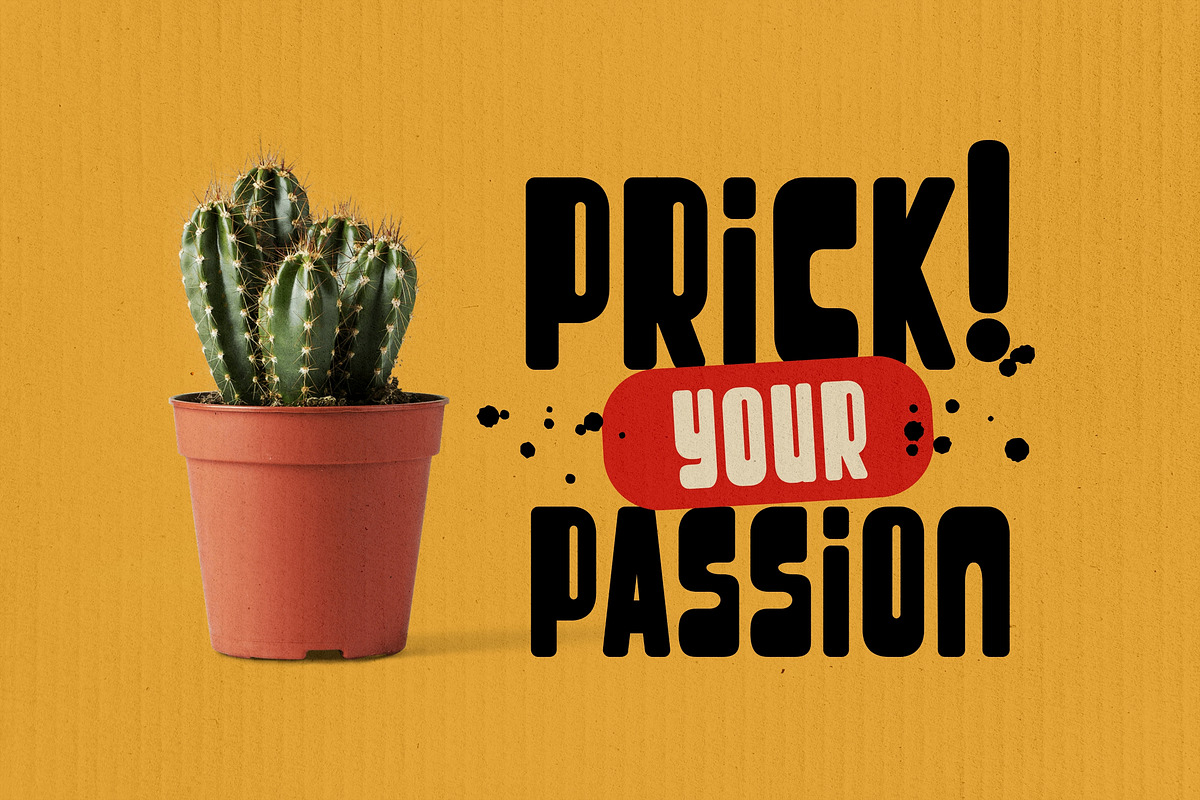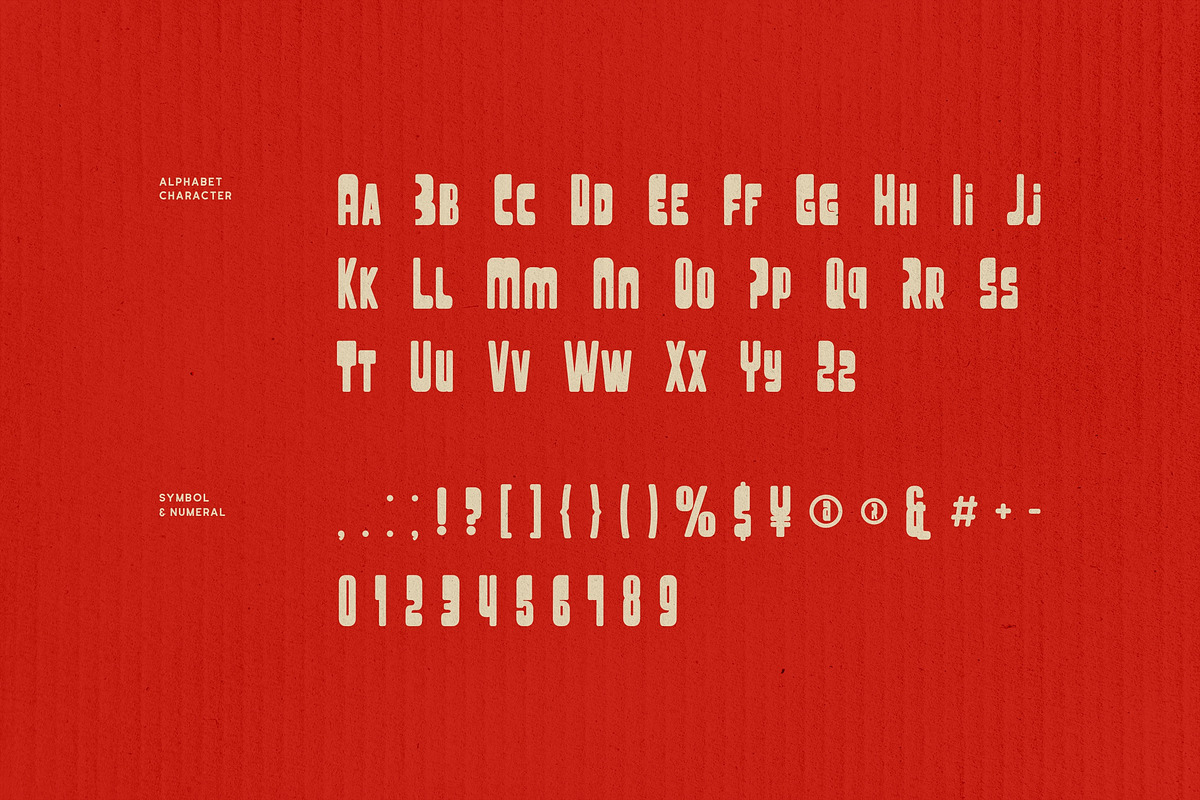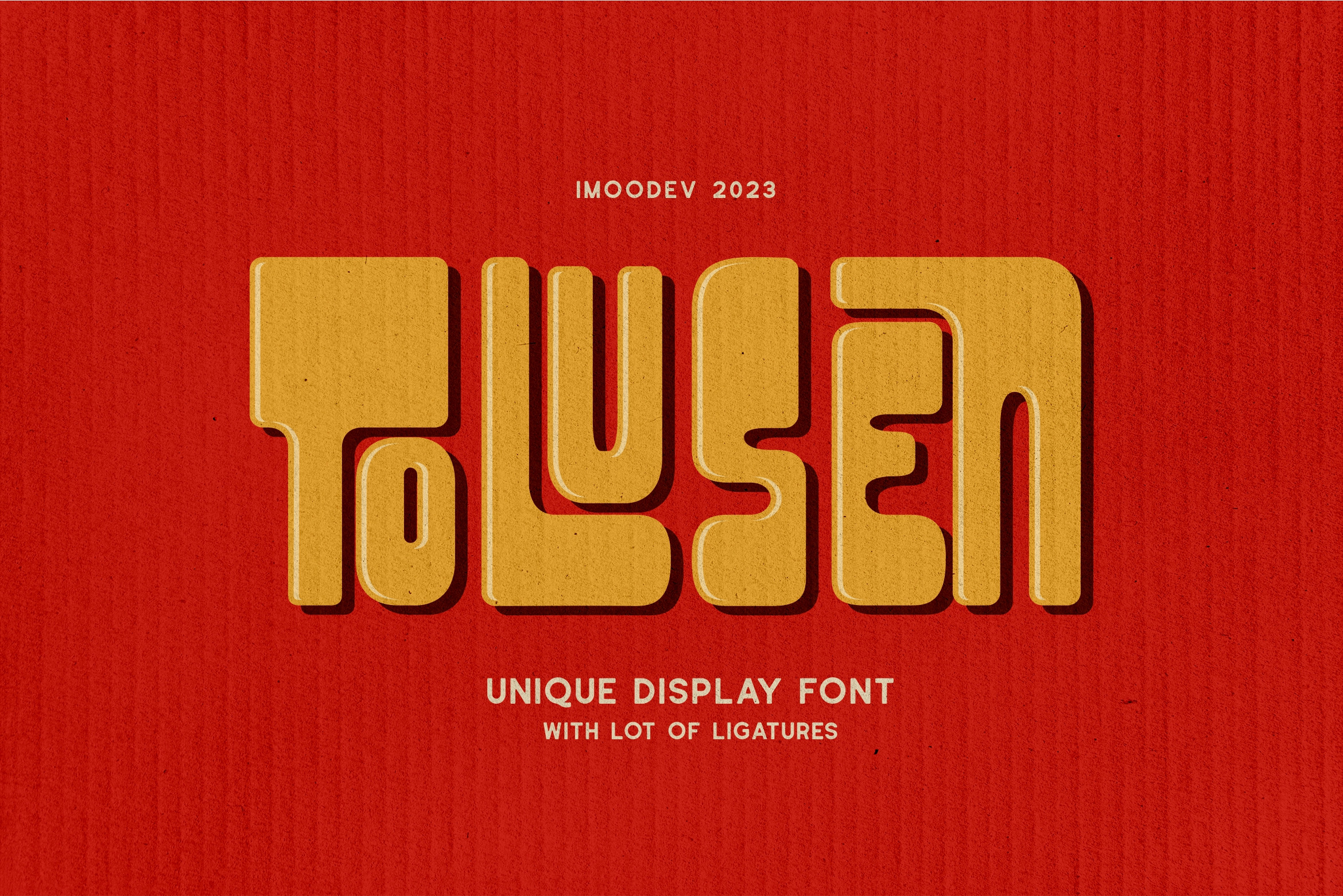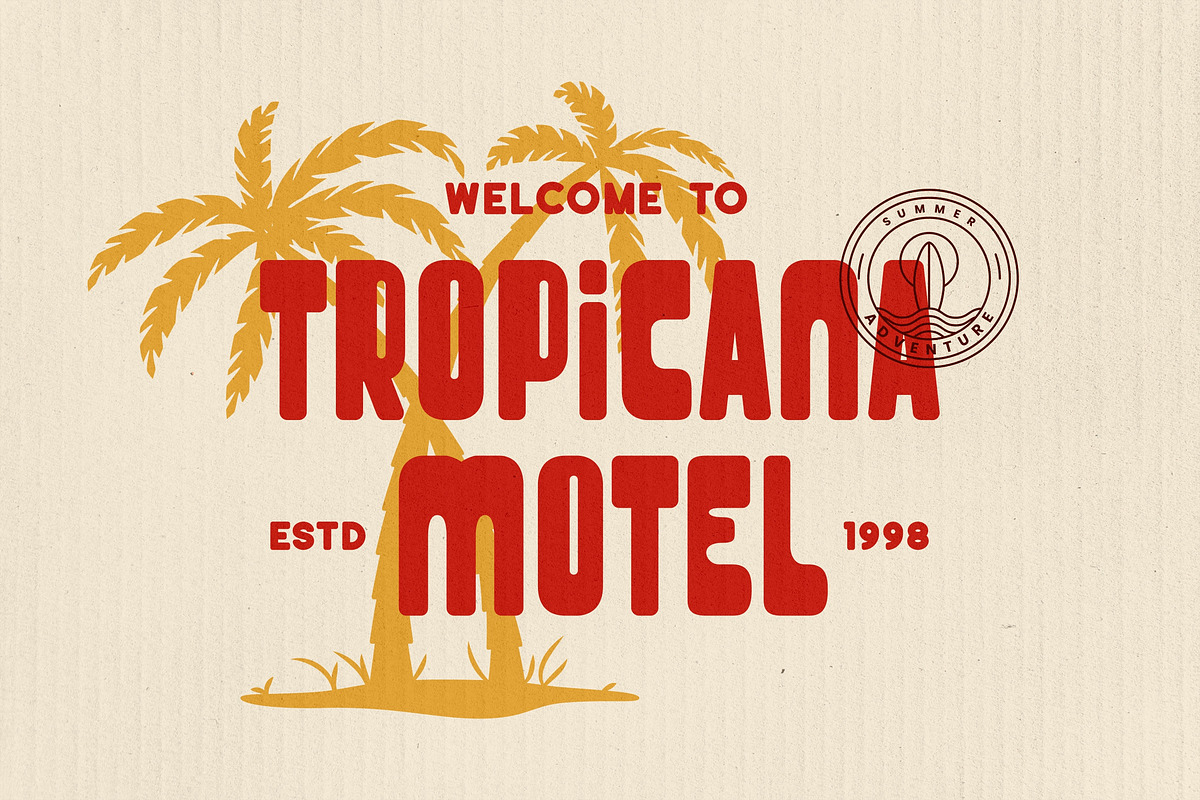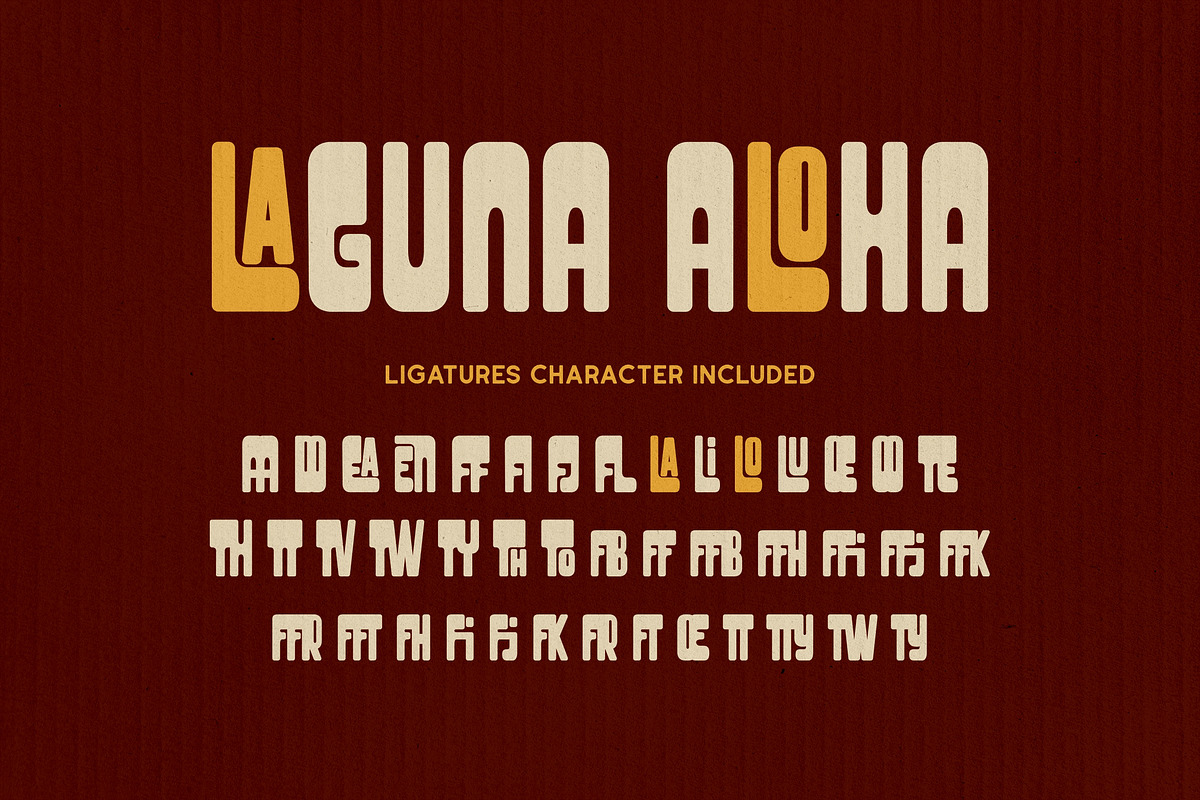
Tolusen - Bold Retro Font
Tolusen is a bold, retro-inspired display typeface that oozes playful personality and summer vibes. Its chunky, geometric letterforms feature soft, rounded edges and dramatic. The combination of solid shapes and clever negative space gives each letter a unique, almost modular look, while still keeping the text highly readable.
Tolusen brings a touch of the 1970s making it feel nostalgic with a modern twist. Perfect for branding projects, posters, packaging, social media graphics, and event titles that need to stand out with a bold, friendly, and retro-modern look. It’s especially well-suited for summer events, tropical themes, or anything that needs a dash of playful energy.